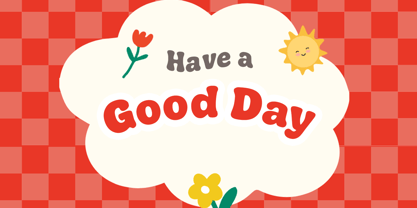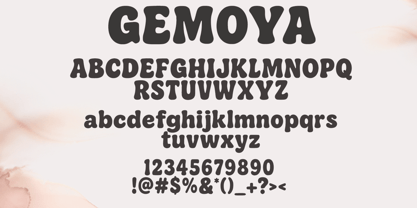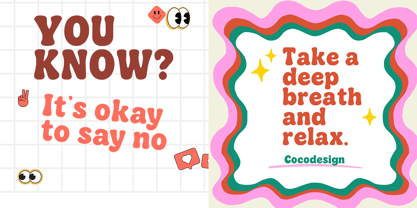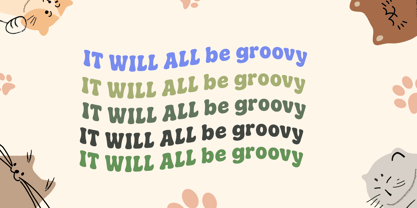
Gemoya
by Cocodesign
The Gemoya Font Family was designed by Muhammad Zaini and published by Cocodesign. Gemoya contains 3 styles and family package options.
Gemoya is a bold and bubbly retro display font inspired by groovy 70s vibes. With its rounded curves and playful personality, this typeface is perfect for adding a cheerful and eye-catching touch to any design. Its versatile style makes it ideal for posters, packaging, logos, invitations, apparel, and social media graphics.
Designed to combine retro charm with a modern twist, Gemoya delivers a friendly, fun, and memorable look. Whether you are creating bold headlines or playful branding, this font brings a unique vintage energy that instantly stands out.